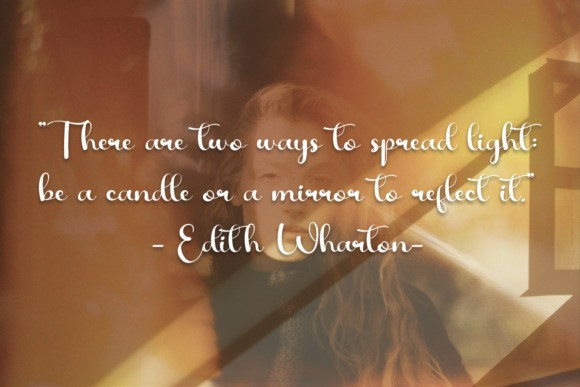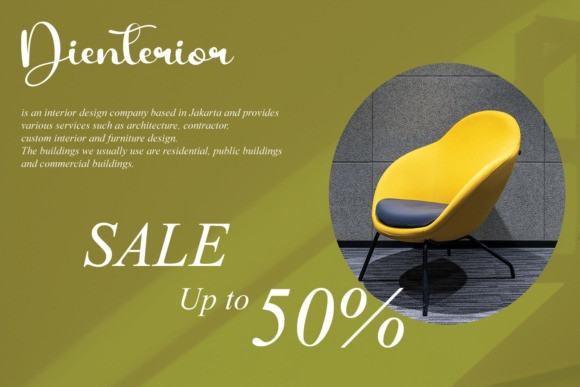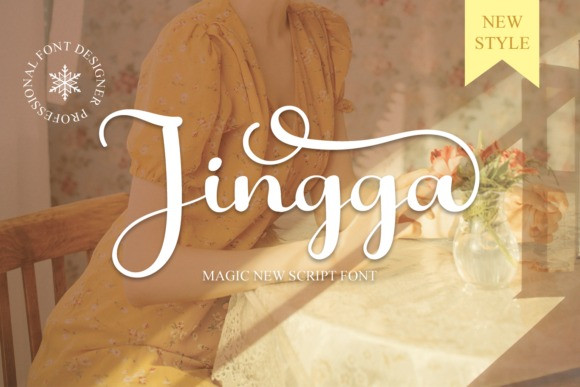
Jingga Font
Jingga Font is an exquisite handwritten font, masterfully designed to become a true favorite. It maintains its classy calligraphic influences while feeling contemporary and fresh. Fall in love with it and bring your projects to the highest levels!